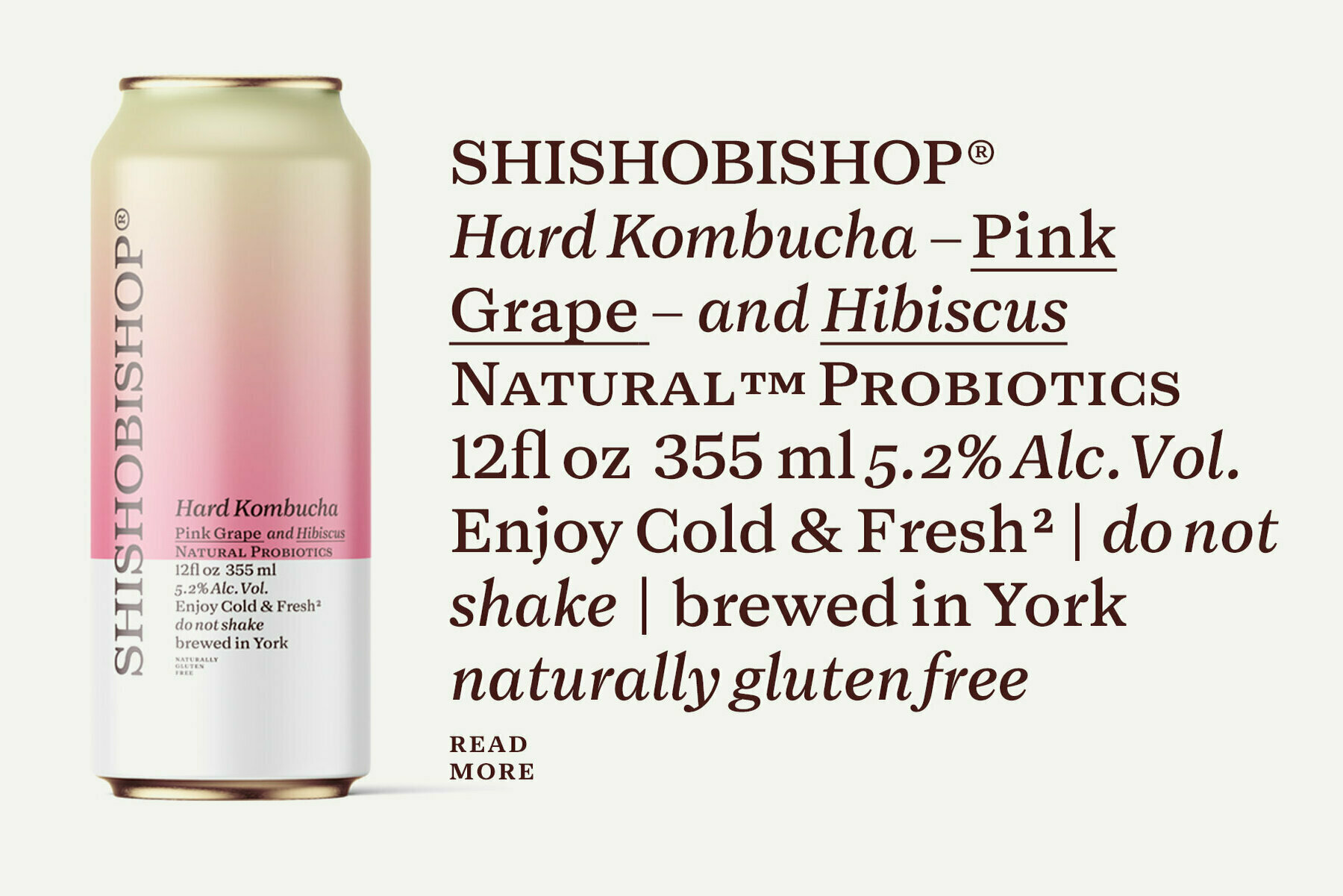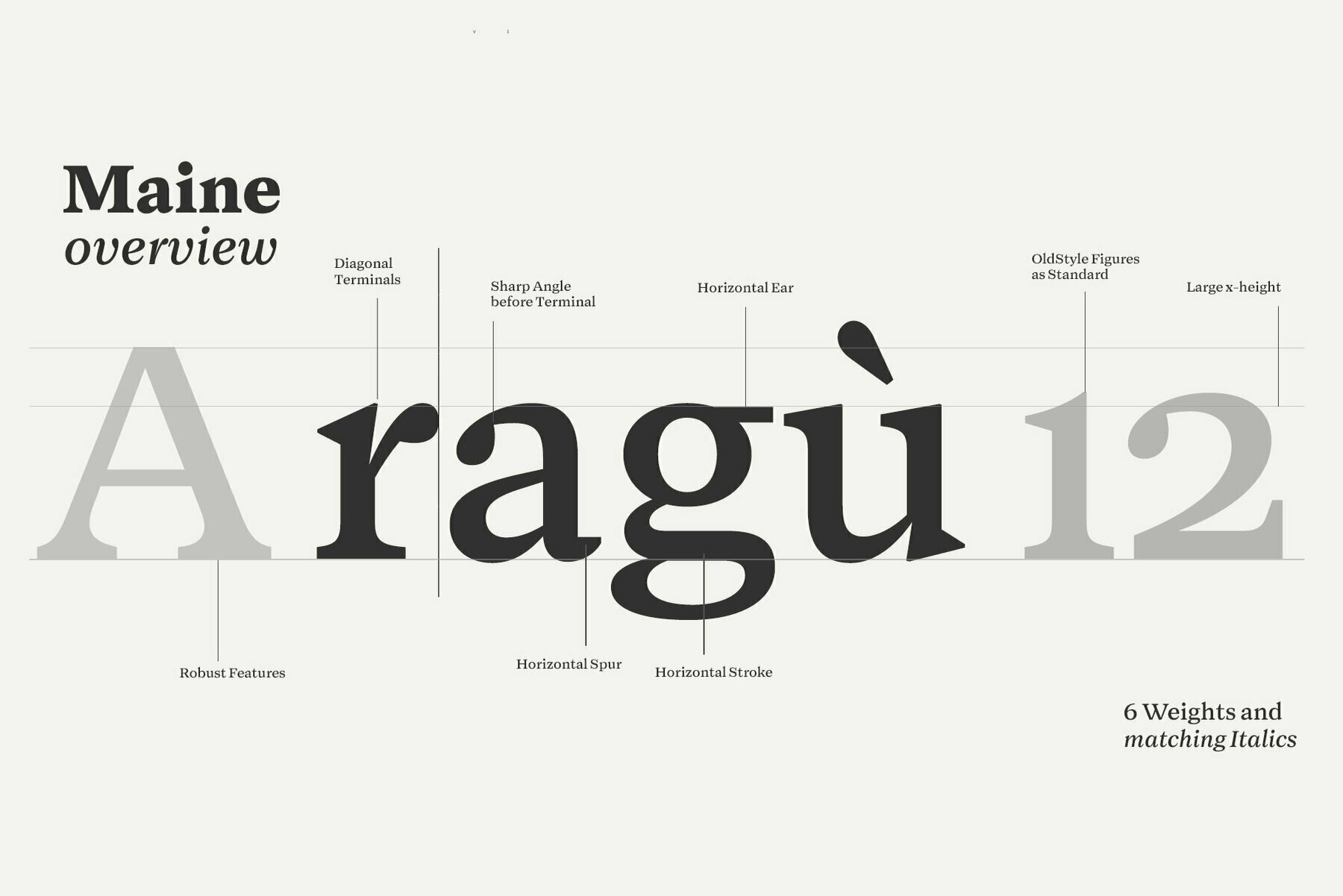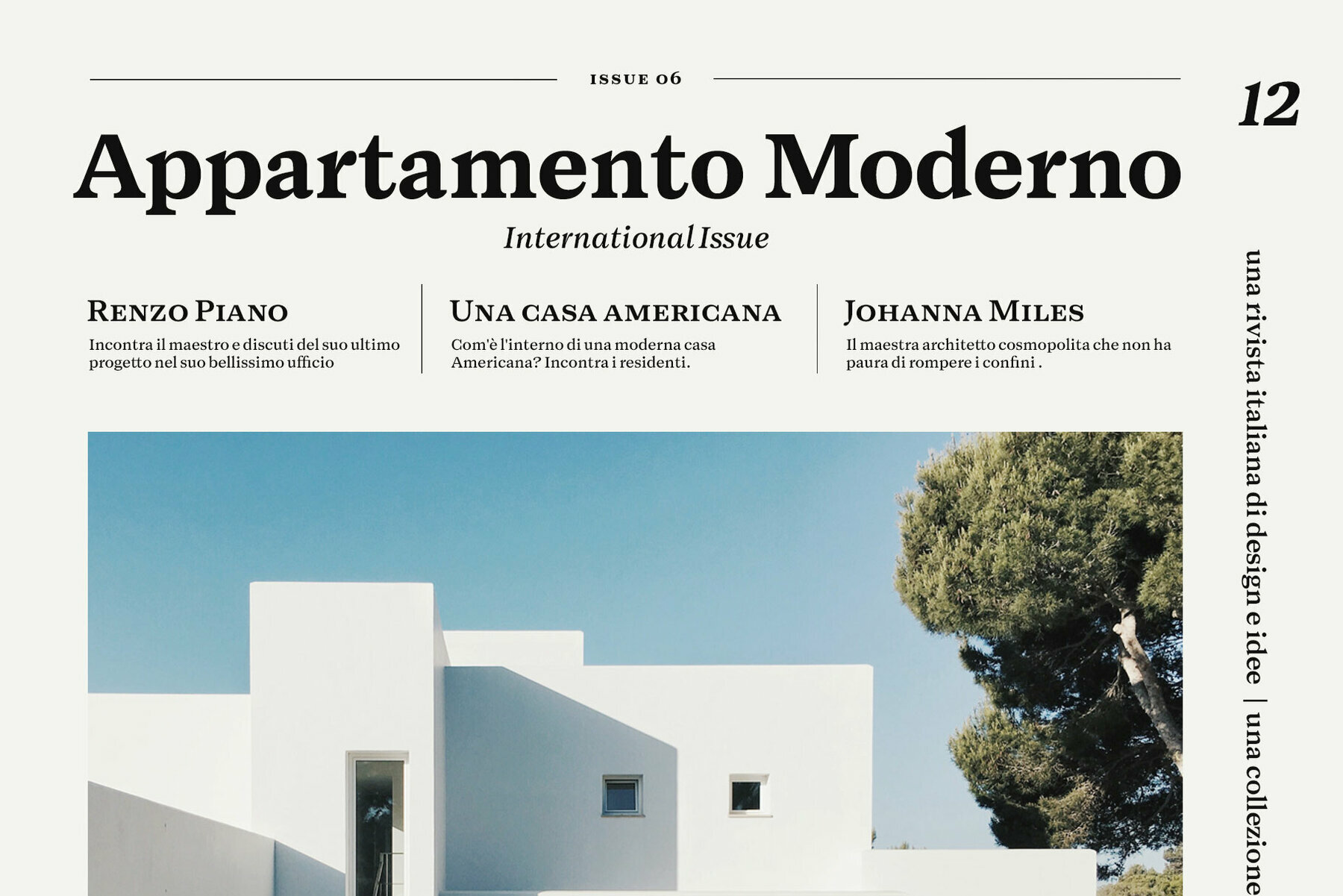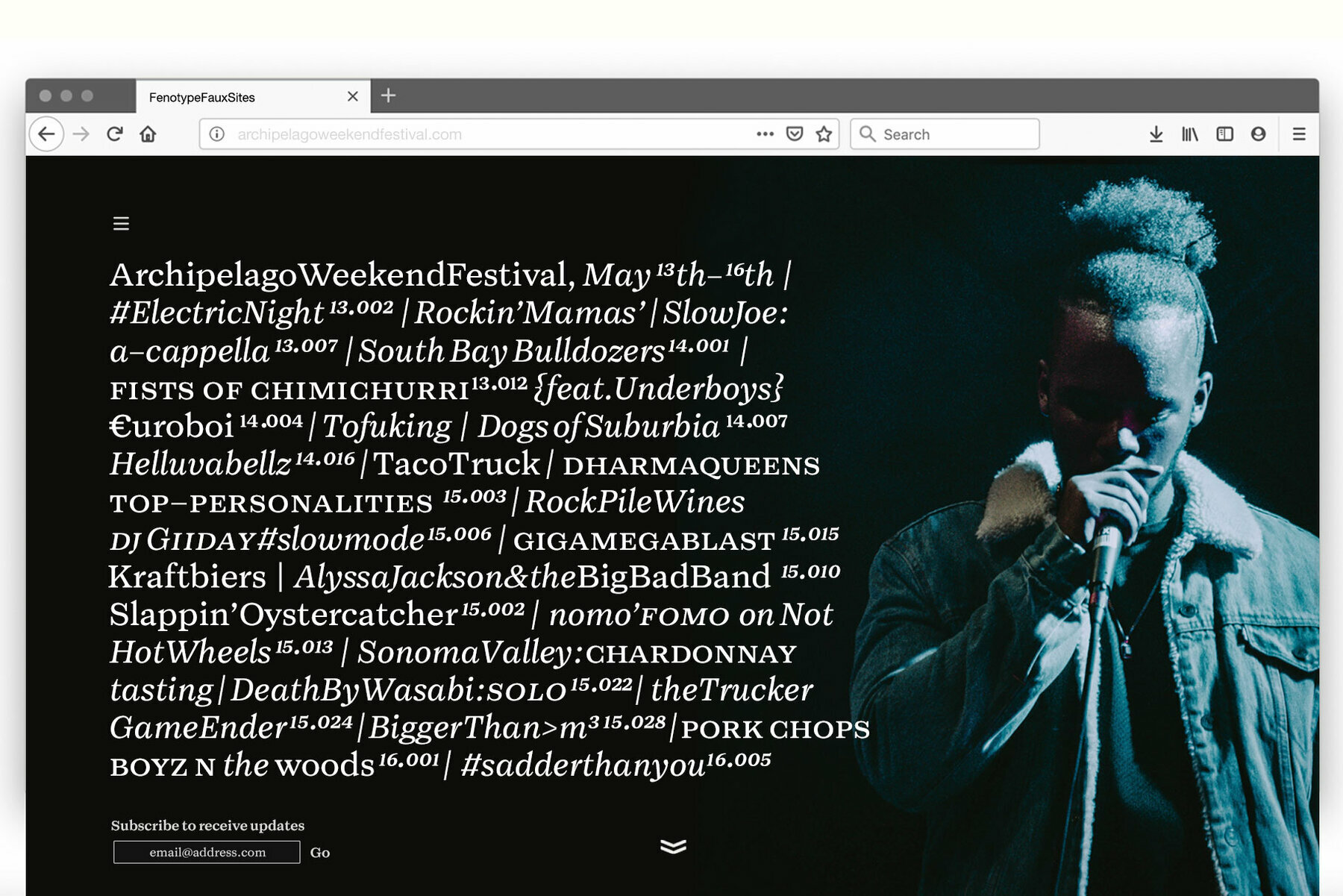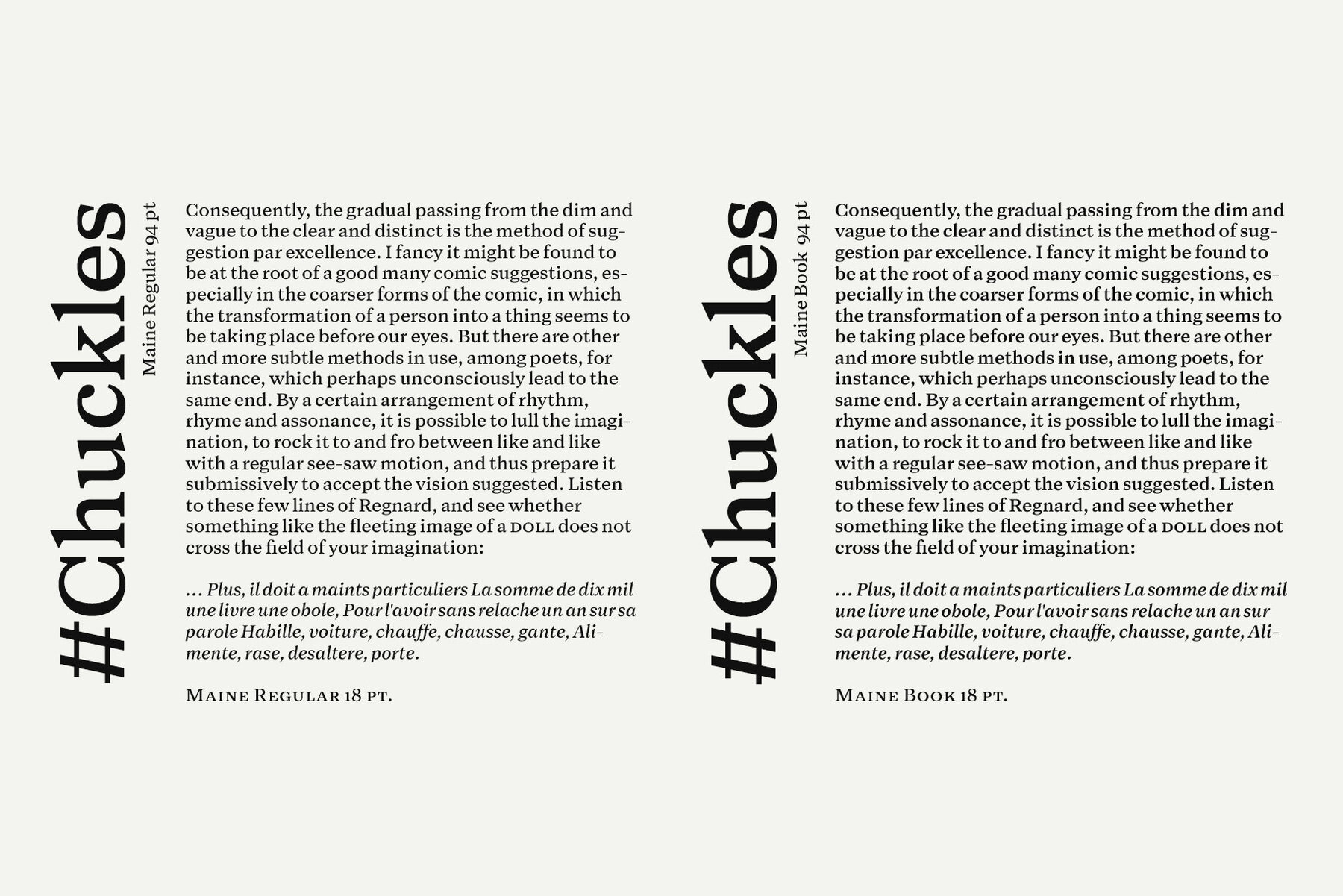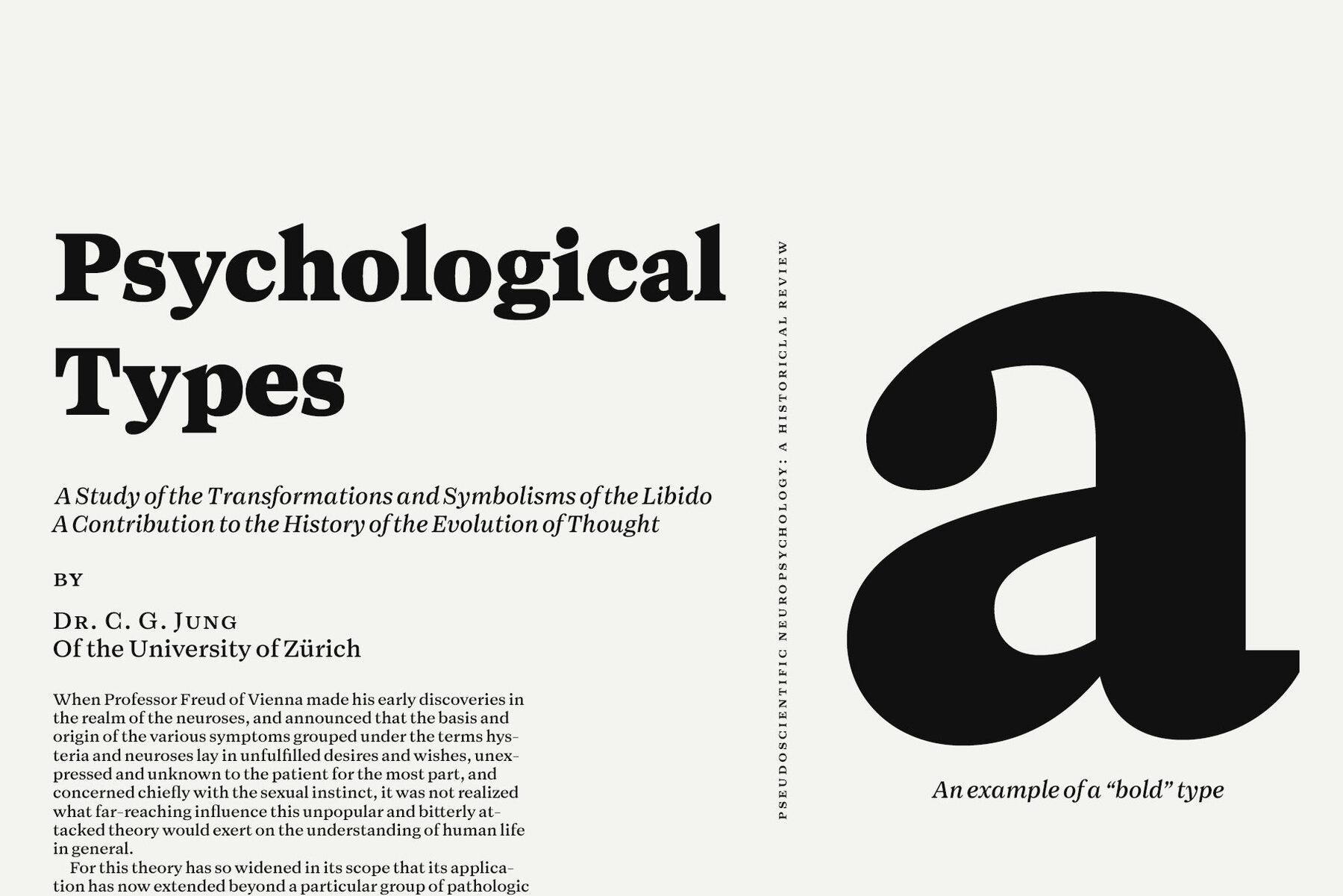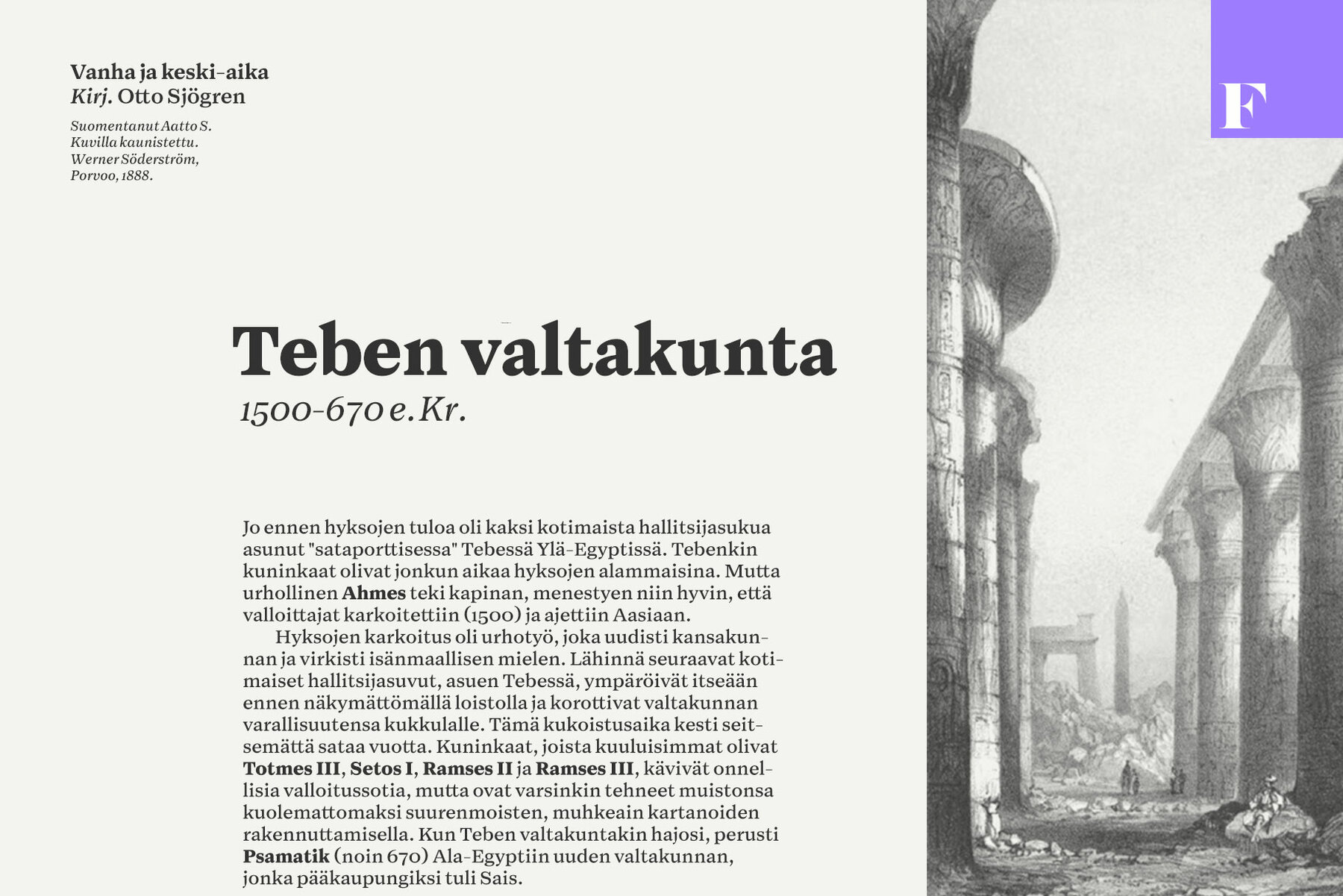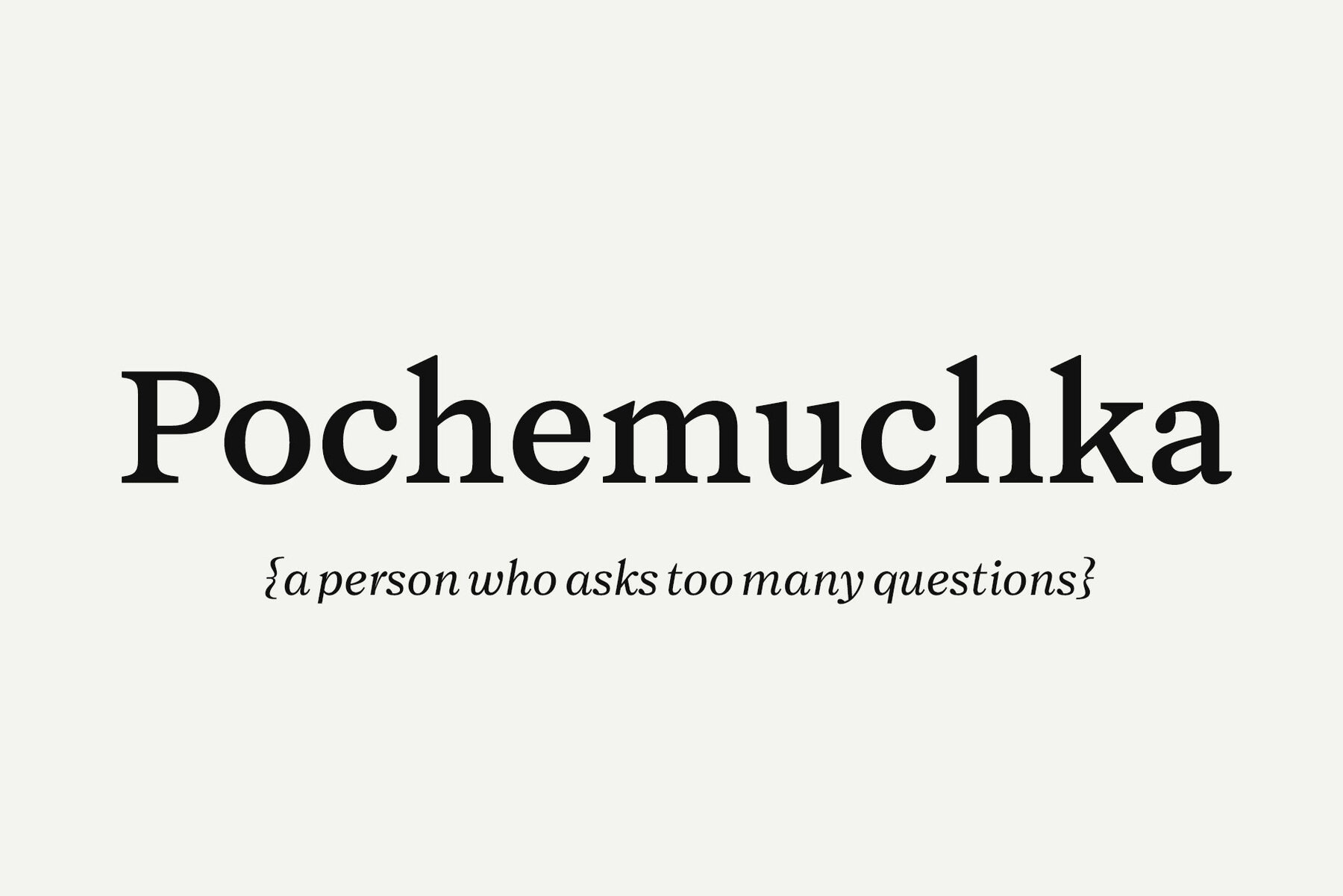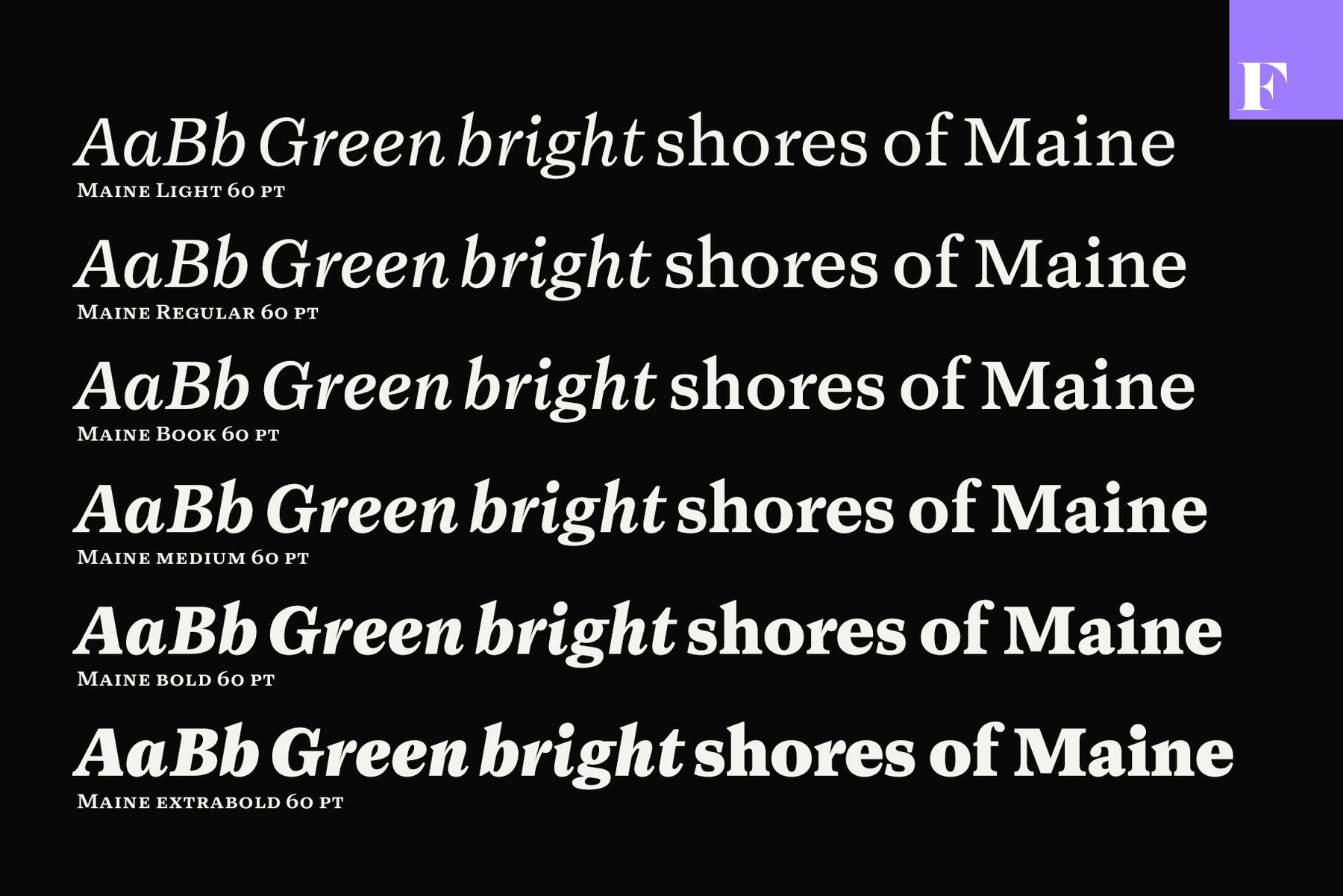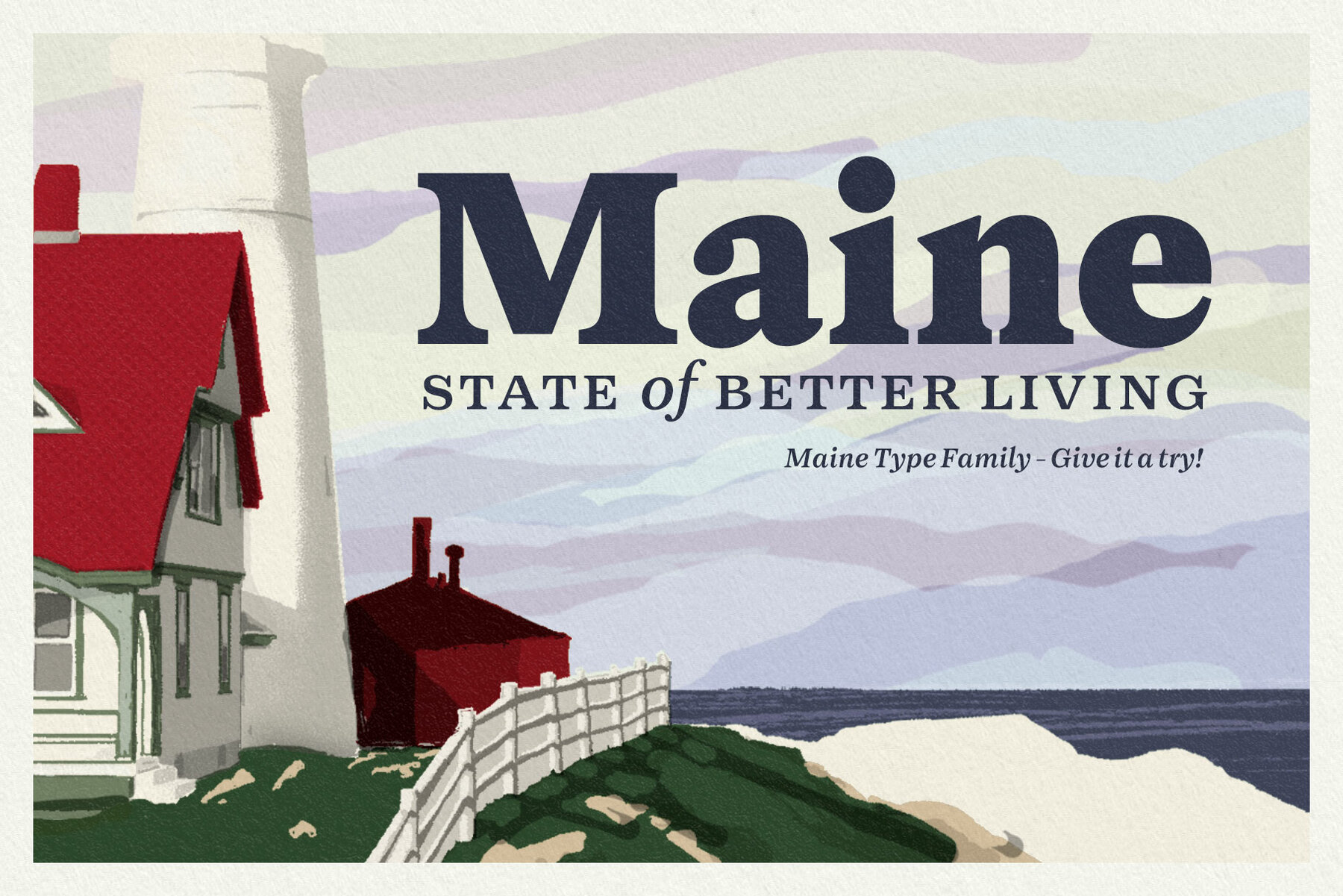
Maine Font
Fringed by ocean's foamy surges, Belted in by woods of gloom, Maine is a modernized book antiqua consisting of six styles and matching italics. Maine's cuts are from Light to Extrabold, of which Regular and Slightly Bolder Book are especially suitable for longer texts. Thanks to its clear features and high x-height, Maine creates a beautiful and legible textile body text.
Maine is equipped with Small Caps, Fractions, Superscript and Subscript. OldStyle Numerals are set as standard, and Tabular and Lining Figures can be accessed from OpenType features.
Maine gives a professional, no-nonsense impression and it’s best used in editorial, books, magazines and everywhere where you can use many different styles and sizes of the same typeface. Go dignified with Maine.